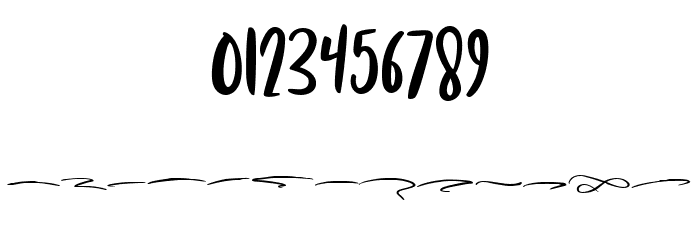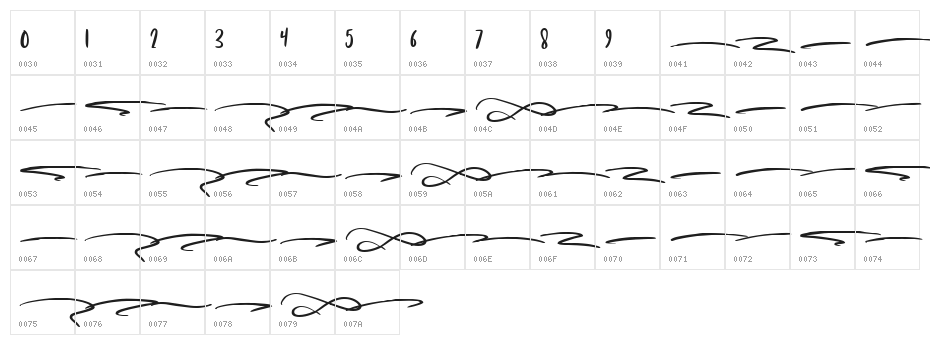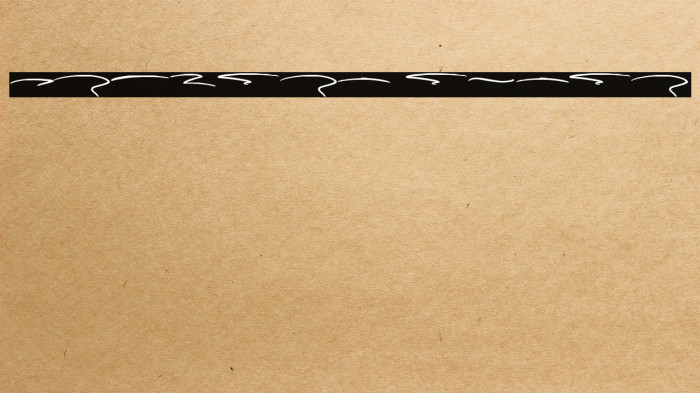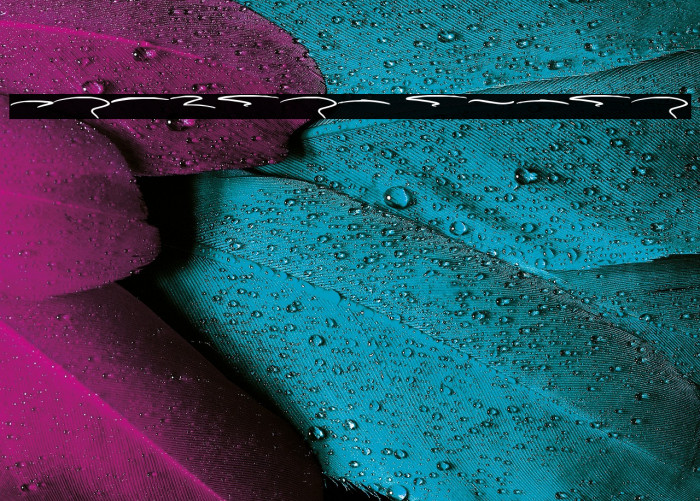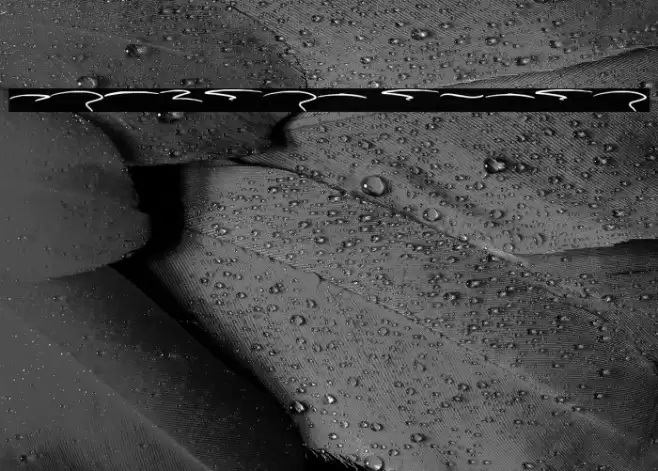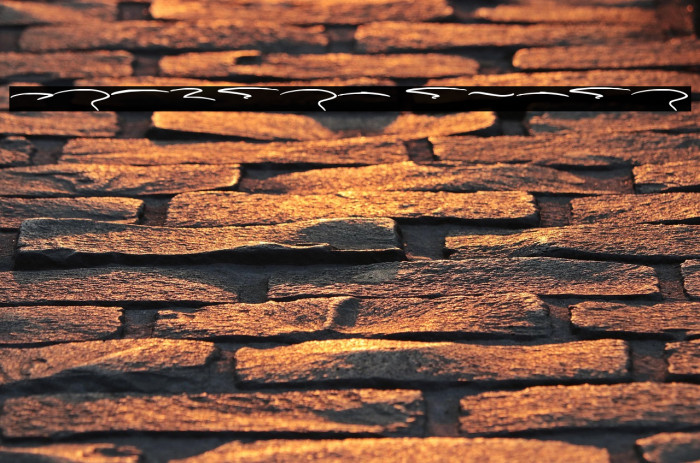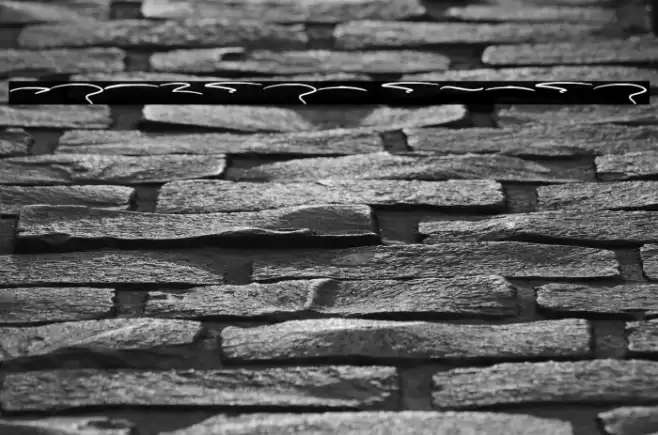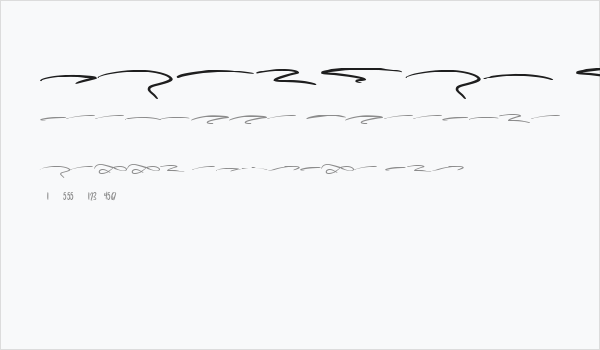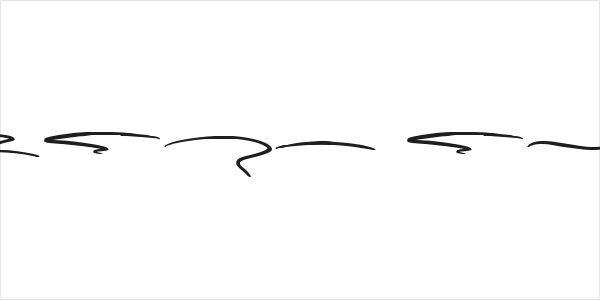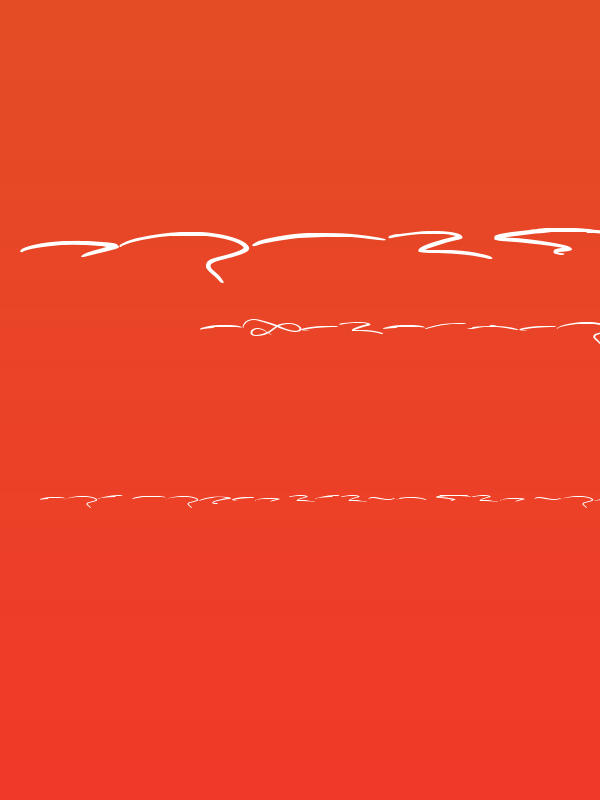
Kudofun Swash Font
Kudofun Swash Description
This font features a playful and whimsical design, characterized by its flowing and decorative swashes. The numbers are bold and rounded, adding a touch of fun and creativity. The overall style is reminiscent of hand-drawn calligraphy, with each character exhibiting unique flourishes and curves. The font's artistic flair makes it suitable for projects that require a touch of elegance and personality.
| Proposed Projects | Ideal for invitations, greeting cards, playful branding, and artistic posters. |